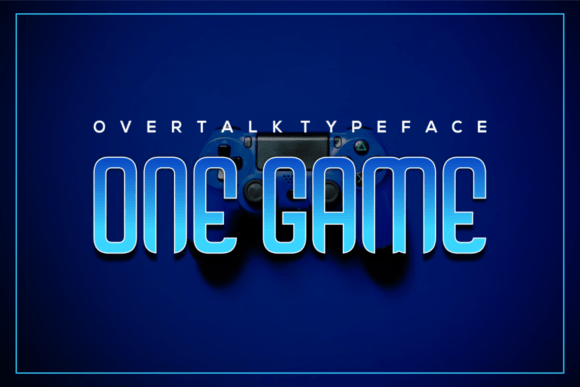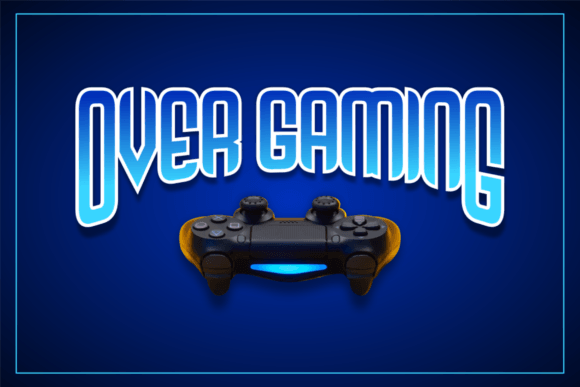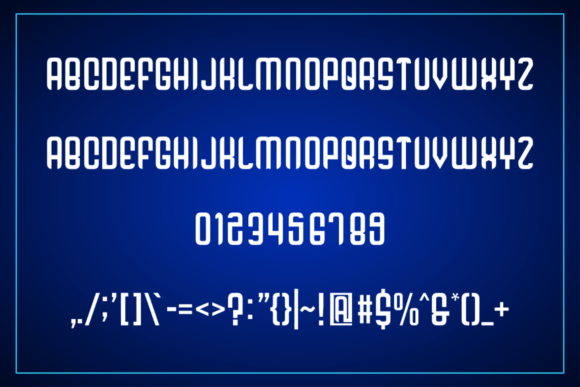
Introduction to Overtalk Font
Do you ever find yourself stuck in front of your computer, trying to come up with the perfect design for your latest creative project? You’ve got a great idea, but the font is just not quite right. That’s where the Overtalk Font comes in – a high-quality, elegant sans serif font that’s perfect for giving your designs a clean and modern vibe.
Whether you’re working on a book cover, a social media post, or an invitation, the Overtalk Font is a valuable resource for any designer. Its minimalist style makes it easy to pair with any background, and its transparent background option allows for seamless integration into your design. And the best part? It’s free to download, making it an accessible design resource for creatives of all levels.
Key Features of Overtalk Font
- The Overtalk Font is a unique design resource that offers a high-quality, creative solution for various projects.
- Features a transparent background, allowing for seamless integration into various design elements and backgrounds.
- Designed to be highly legible, with a clear and modern aesthetic that makes it perfect for a wide range of creative projects.
- The Overtalk Font is a versatile design resource that can be used for various purposes, from headings and titles to body text and captions.
- Its unique characteristics and modern design make it an excellent choice for designers looking for a high-quality, free download font.
Honest Review: Overtalk Font
As a designer, I’m always on the lookout for high-quality design resources that can elevate my creative projects. The Overtalk Font is one such find that I’d like to share with you.
What works well with this font is its modern and sleek aesthetic. The clean lines and subtle texture make it perfect for a wide range of applications, from web design to print materials. The font is also available for free download, which is a huge bonus for designers on a budget.
- ✨ Supports transparent background, making it easy to use in layered designs
However, I did encounter some limitations with this font. The character set is limited, and it may not be suitable for complex text-based designs. Additionally, the font may not be as versatile as some other options on the market.
Overall, I’d give the Overtalk Font 4 out of 5 stars. While it’s not perfect, it’s a great addition to any designer’s toolkit, especially for those on a budget.
- ⚠️ Limited character set
- ⚠️ May not be as versatile as other font options
Tips for Getting the Most Out of Overtalk Font
Experiment with different font sizes, colors, and styles to get the most out of Overtalk Font. This versatile design resource can be used for a wide range of creative projects, from logos to social media graphics.
Overtalk Font is ideal for:
- Logos and branding materials
- Social media graphics and posts
- Presentations and documents